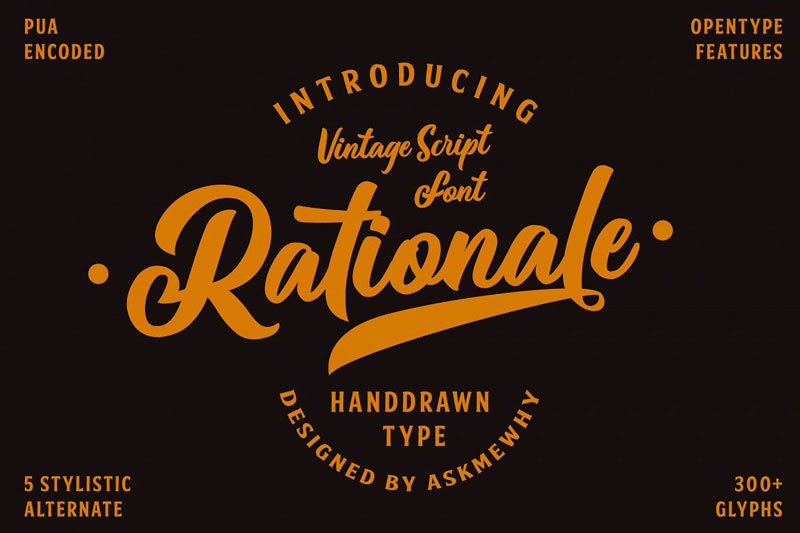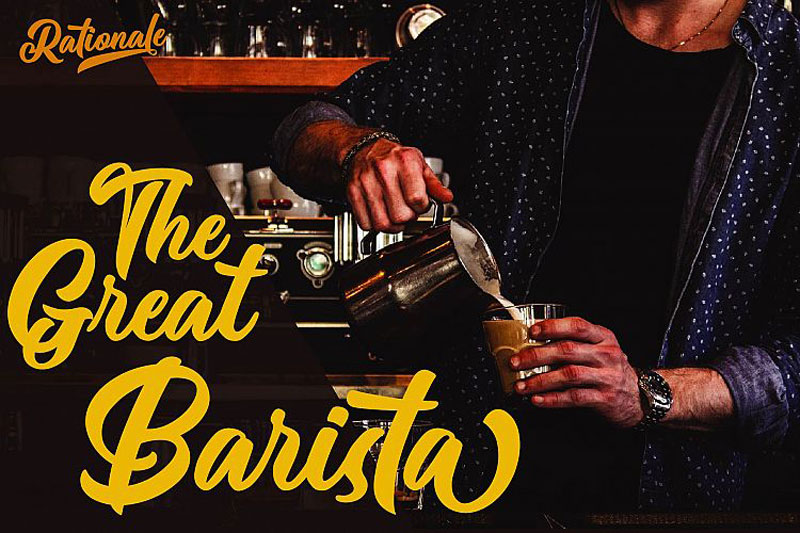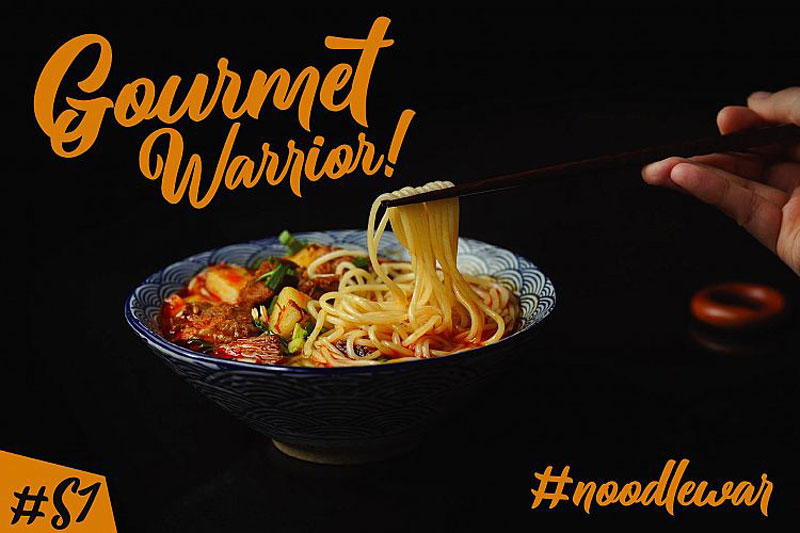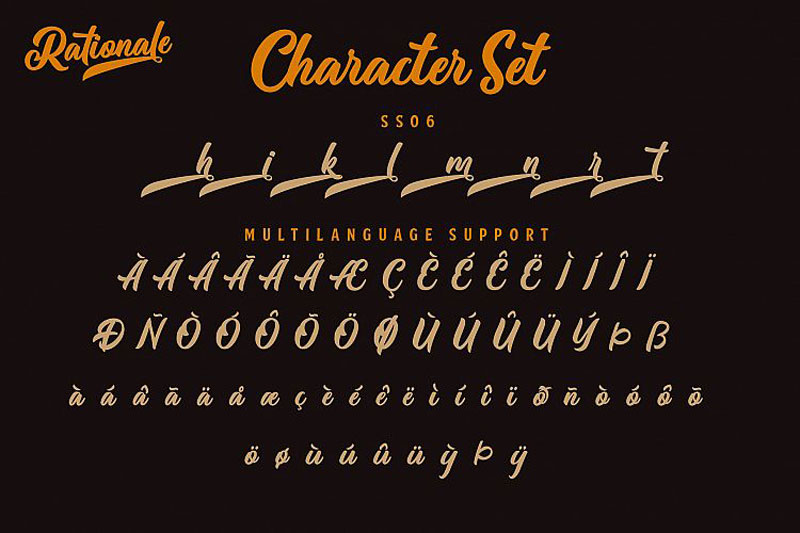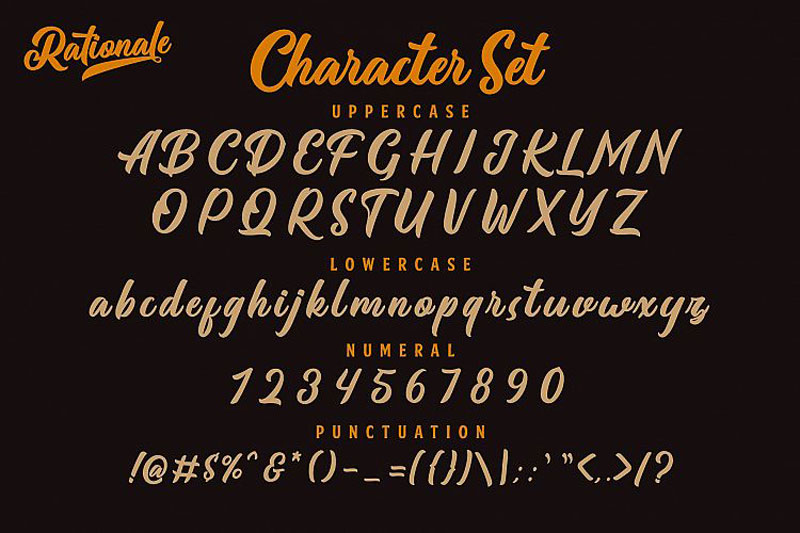
Rationale Vintage Script Font
Rationale Vintage Script – This font is a basic hand-drawn font that really natural, cool & modern hand-lettered font. It’s perfect for logo, branding, stationery, social media posts,
advertisements, product packaging, product designs, label, photography,
watermark, special events, or anything.
• Very great for branding, logotype, hand lettering, invitations, or fashion branding.
• Multilingual Support